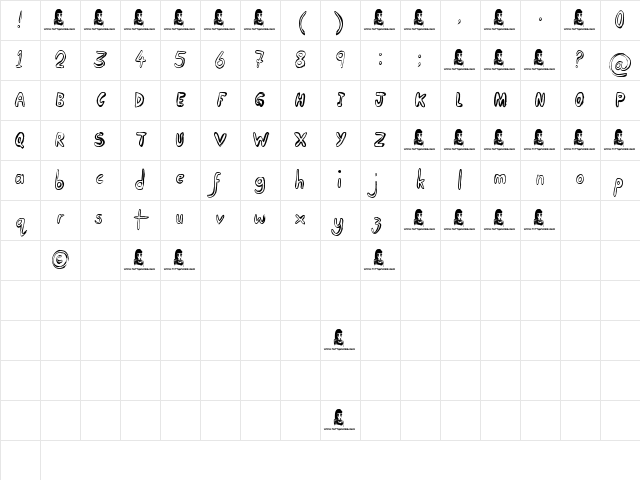
Taking Notice Regular Free Font
Taking Notice Regular
Foundry: Jonathan S. Harris
Designer: Jonathan S. Harris
Design Context for Taking Notice
Taking Notice is a composed and adaptable typeface that performs quietly and consistently across a wide range of design contexts.